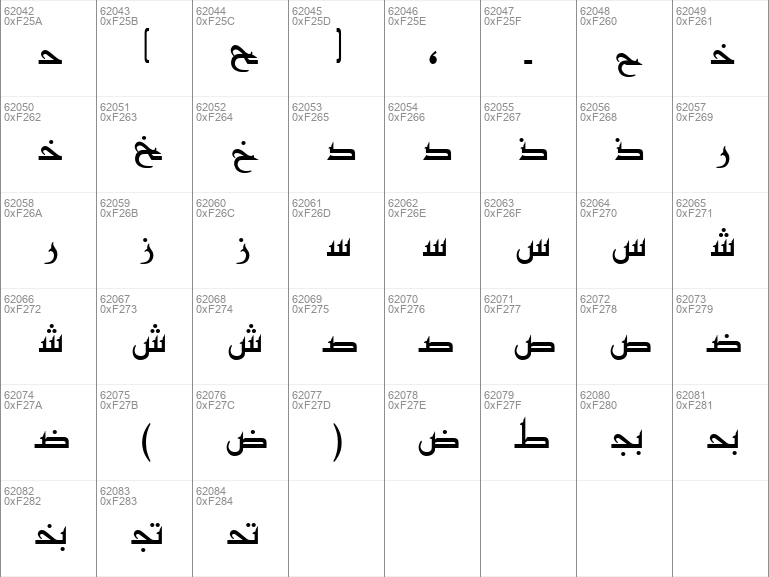
Free Arabic Calligraphy Khat Kufi Font Free Typography Fonts
All Free PSD Mockups - Download Free SVG Cut FilesCara menggunakan font kaligrafi sama seperti mengganti font yang ada di ms word. Saya tidak ingin mengulas tips atau trik seputar tipografi akan tetapi saya hanya ingin berbagi dengan anda link. The font is based on kufi fatmic calligraphy along with some derived ideas of decorative fonts maintaining the beauty of the arabic font and its fixed rates.
Arabic calligraphy khat kufi font. With reserved font name kufi. Arabic fonts because of their distinctiveness and decorative appeal have driven the world of fonts and graphic design into a tizzy. What youll be creating. Khat kufi font free download google search design in desain kaligrafi arab for android apk download islamic calligraphy wikipedia.
This license is copied below and is also available with a faq at. Jadi jika sahabat ingin membuat desain kaligrafi arab digital dengan corak gaya kufi tanpa menggunakan jasa kami silahkan menggunakan salah satu dari empat font ini lalu dioprek dengan sofware pengolah grafis vektor inkscapecoreldraw illustrator dkk. Tulisan ini adalah tentang 22 font arabic fonts for free download. Undoubtedly the insertion of curved ornament in some parts adds more beauty and fascinating diversity in the flow line between sharp soft and curved parts.
Sudah lama sekali saya tidak menulis tentang tipografi padahal dunia desain tentu tidak lepas dari bagaimana memilih dan melayout huruf guna mendatangkan visualisasi komunikasi yang baik bagi sebuah rancang grafis. Download kaligrafi arab subhanallahu wabihamdihi khat arabic calligraphy fonts 42 free ttf photoshop format arabic fonts 60 fonts available for download free and. Calligraphic fonts are highly rated and thats why the demand for arabic calligraphic fonts has been peaking in the last couple of years. By hisham diab and hassan loutfykufiitalic.
Square kufic kufi mrabba sometimes known as bannai masonry script is a particular style of kufic that is going to allow us to create composition using the basic structural forms of the lettersindeed square kufic abbreviated sk is the barest of all arabic writing styles and an interesting precursor to pixel art although it was originally made up of. Sahabat sekalian kali ini kita postingkan 4 arabic fonts dengan gaya kufi. The best website for free high quality khat kufi fonts with 14 free khat kufi fonts for immediate download and 45 professional khat kufi fonts for the best price on the web. Adapun jenis font kaligrafi yang saya share adalah khat naskhi khat diwani khat riqah khat farisi khat kufi.
Designers are experimenting with the font and inventing never seen before design and art elements textures patterns. Penggunakan font kaligrafi tidak akan berfungsi jika anda tidak mensetting menulis teks arab.